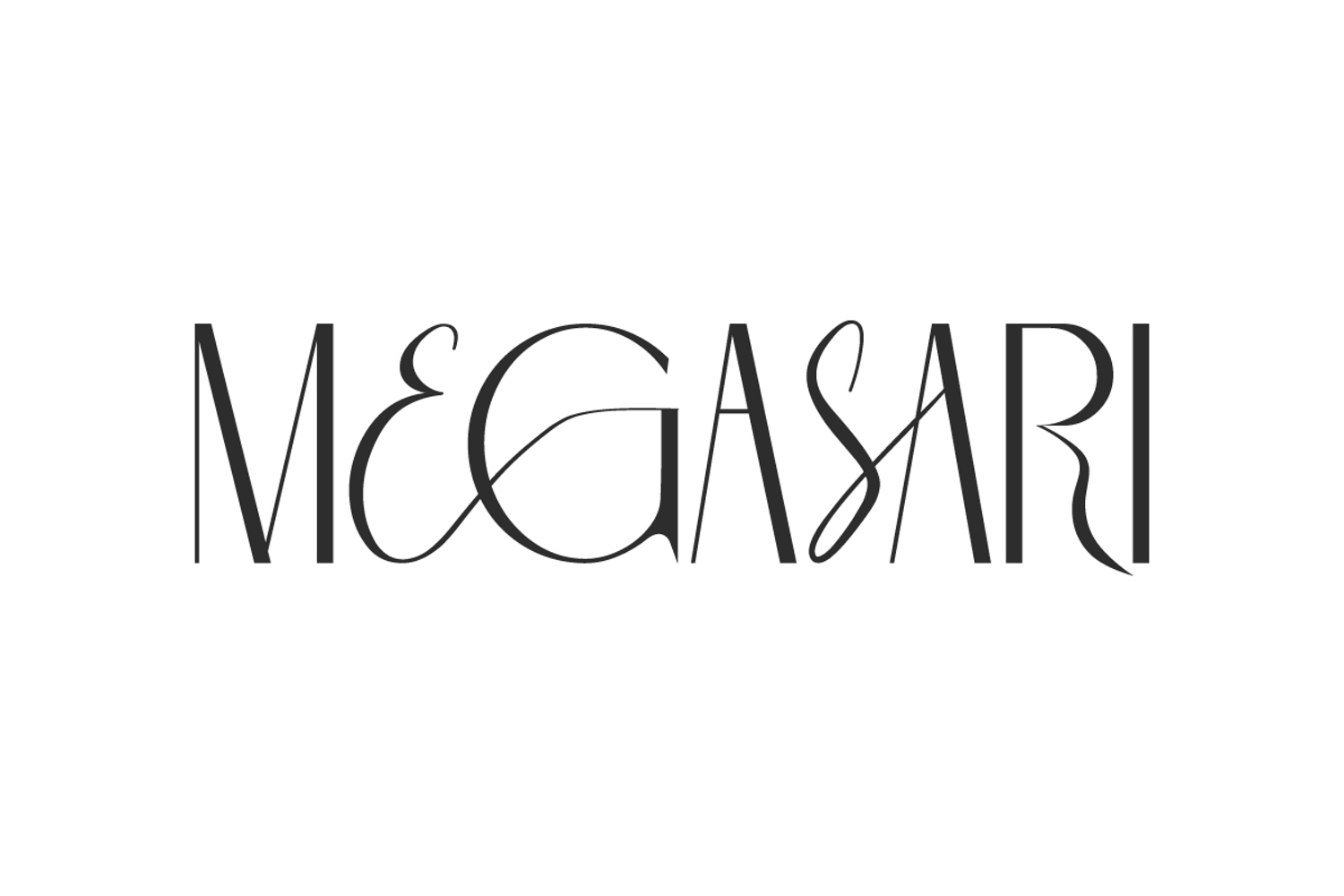
Megasari Font
Megasari Font is a modern and elegant minimalist font Display inspired from some famous fashion magazines. Perfect for the purposes of designing advertising, branding logo, brochures, covers, invitation, layout design, mockup, packaging, quotes, templates, title, videos and more.
Megasari Font contains a complete set of basic Uppercase and Lowercase characters, Numbers, Symbols, Punctuation and Ligature. This font is a calming and chic font display inspired by the sans-serif type that is able to exude a charm of understated beauty. The striking contrast between thick and thin lines, as well as the curves in each letter create a harmony that is visually appealing. Perfect for apparel, cosmetic, elegant crafting, fashion, furniture, jewelry, spa salon etc.